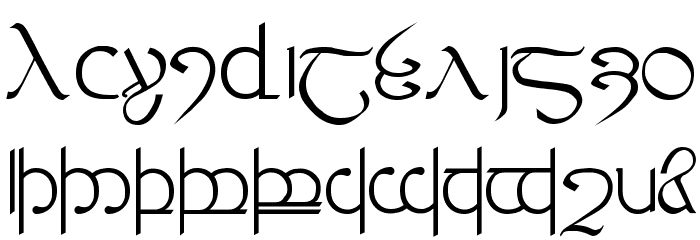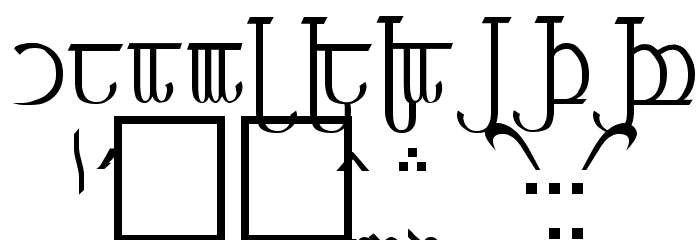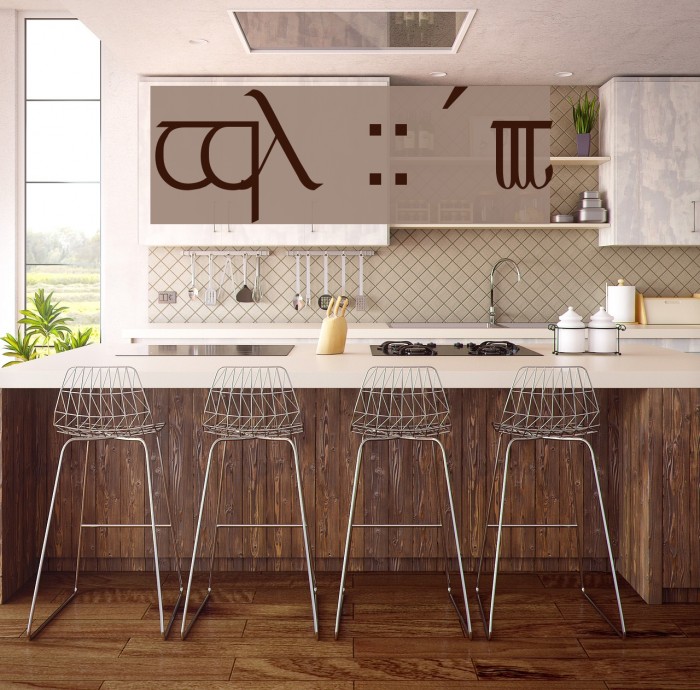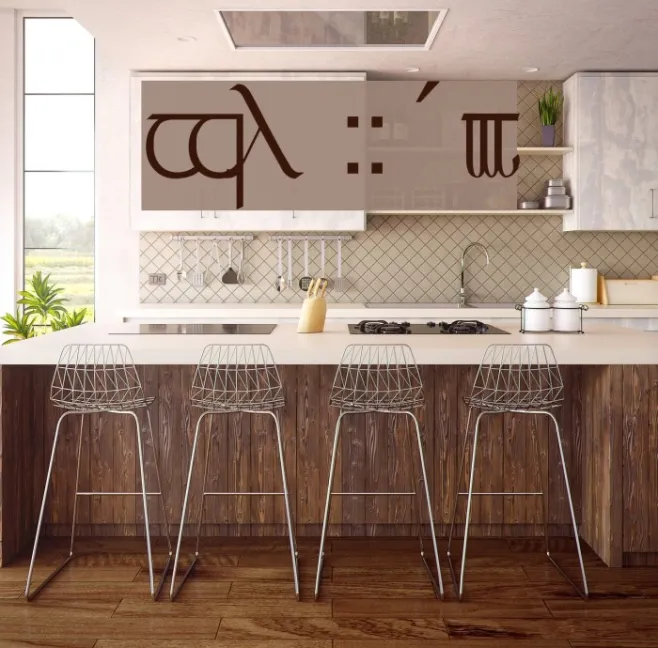
Tengwar ver. # 3 Font
This font is a beautifully crafted script that draws inspiration from fantasy and ancient scripts. It features elegant, flowing lines with a distinctively ornamental style. The characters are interconnected with sweeping curves and intricate details, giving it a mystical and otherworldly appearance. The font's unique aesthetic makes it ideal for projects that require a touch of fantasy or historical ambiance. Its design is both artistic and functional, allowing for readability while maintaining its decorative charm.
An ornamental script with flowing, interconnected characters and a mystical aesthetic.
- Proposed Projects: Ideal for fantasy-themed projects, book covers, movie titles, or any design requiring an ancient or mystical feel.
- Use Case: Logos, Titles, Decorative text